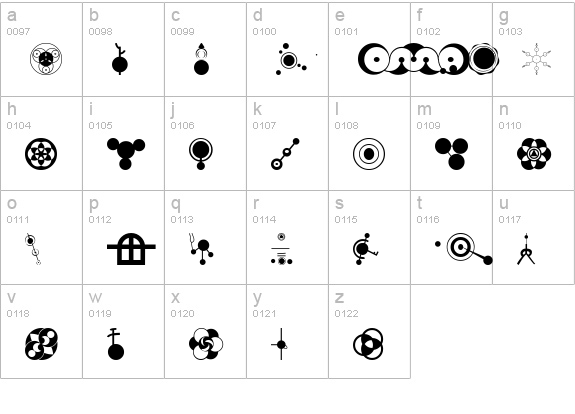
Crop©Bats AOE Font Details
Crop©Bats AOE font is a versatile and unique typeface designed for creative projects that require a touch of originality. With its intricate details and bold design, this font is perfect for adding a distinct flair to your designs. The Crop©Bats AOE font features a wide range of characters and symbols, making it ideal for a variety of uses such as posters, logos, social media graphics, and more. Best of all, Crop©Bats AOE font is available for free download at FontsMarket.com. Simply visit the website to access this one-of-a-kind font and start incorporating its stylish elements into your designs today. Don't miss out on the opportunity to enhance your projects with the unique charm of Crop©Bats AOE font.